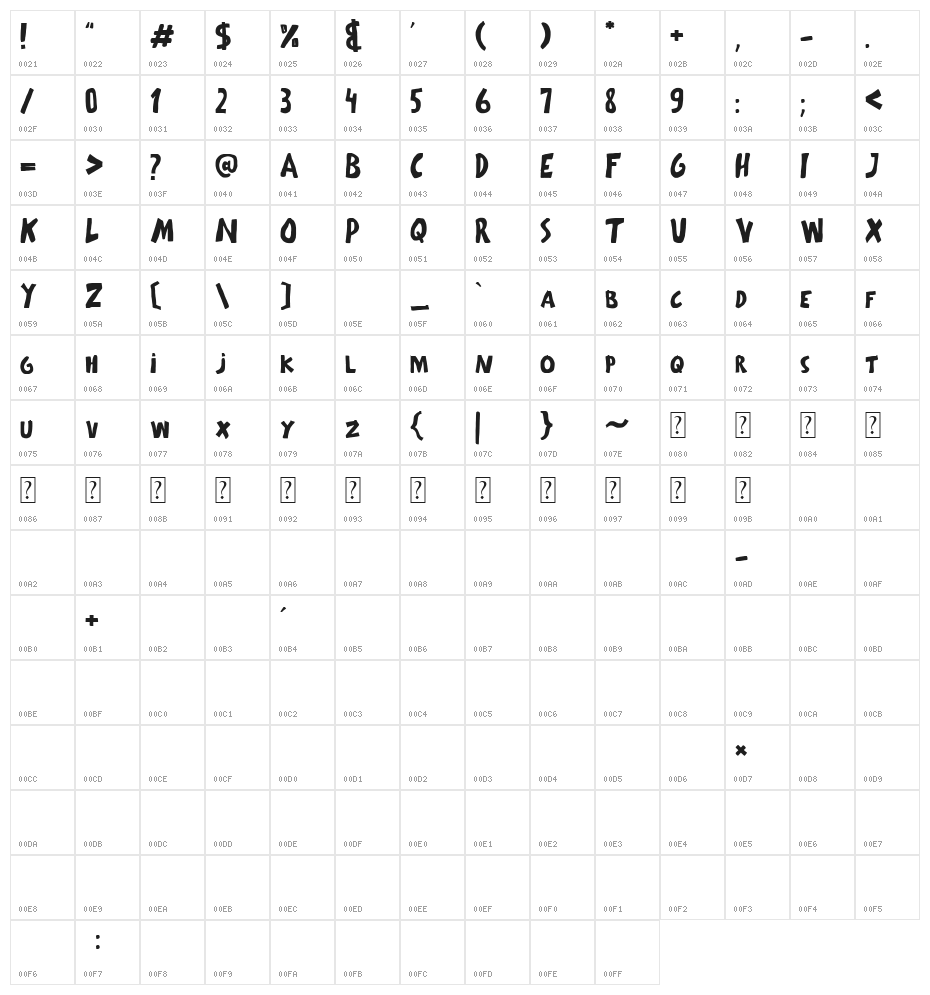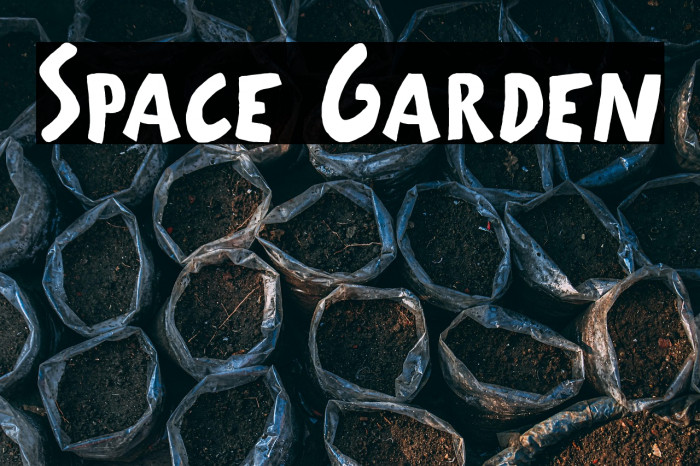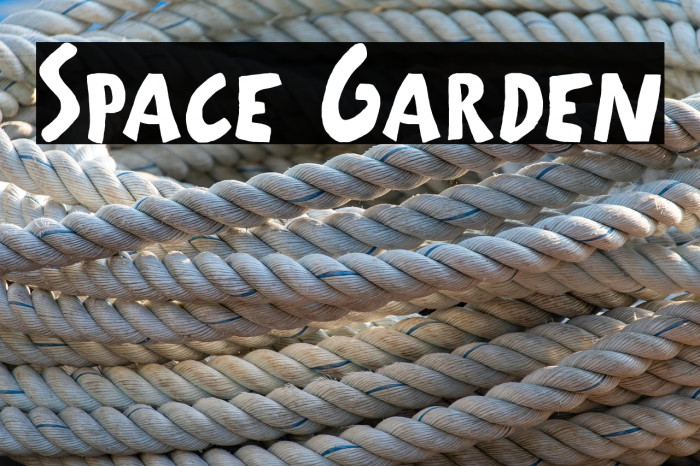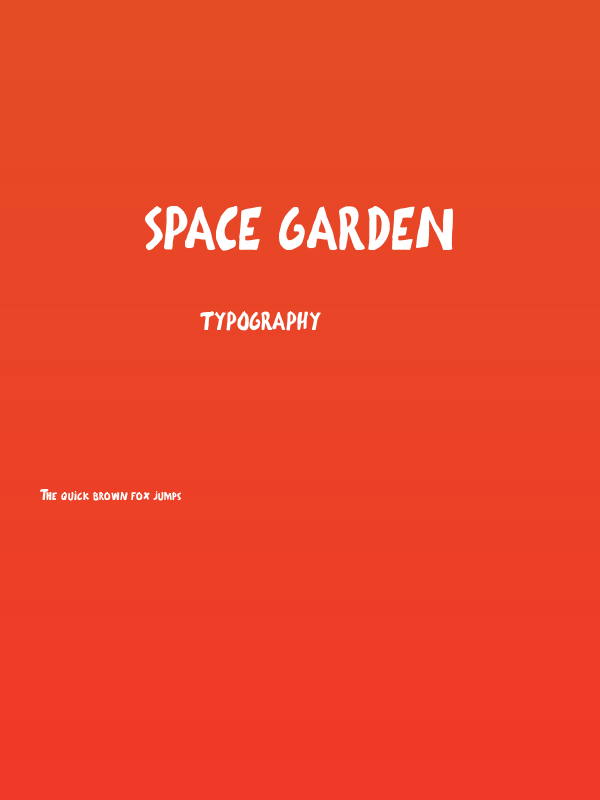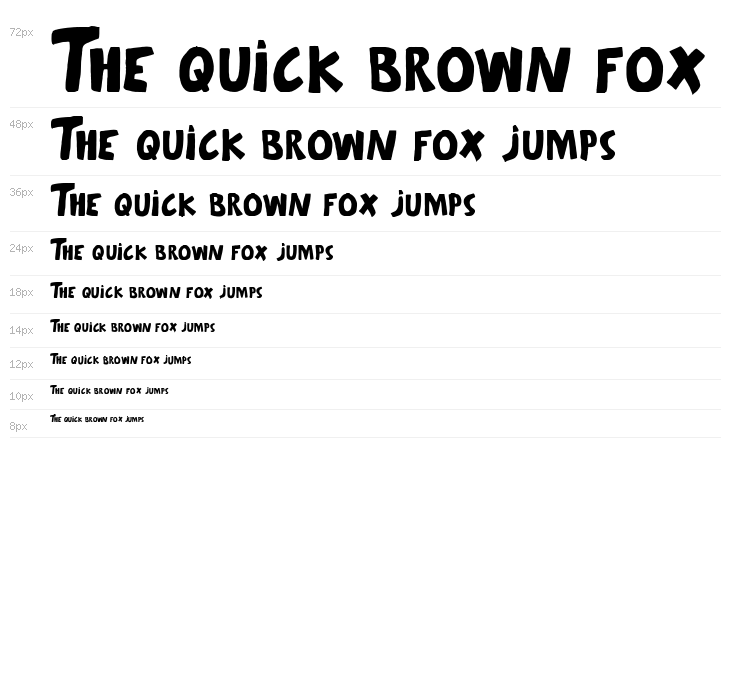
Space Garden Font
Space Garden Description
This font features a bold and playful style with a hand-drawn appearance. The characters are slightly irregular, giving it a whimsical and energetic feel. The uppercase and lowercase letters maintain a consistent weight, contributing to a cohesive look. The numbers and special characters follow the same playful design, making it suitable for creative and informal projects. The strokes are thick and rounded, adding to its friendly and approachable aesthetic.
| Proposed Projects | Ideal for children's books, playful branding, posters, and creative invitations. |